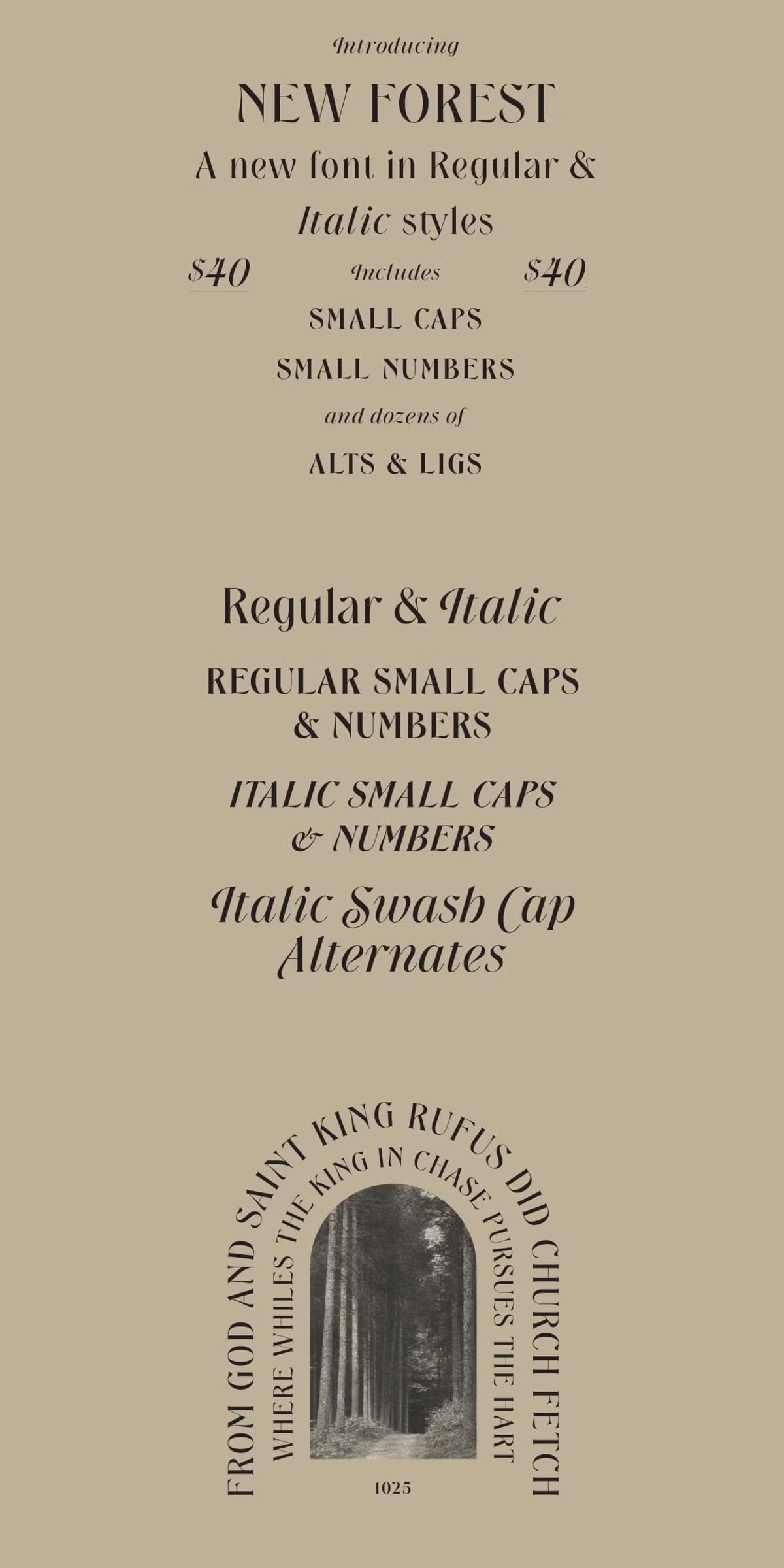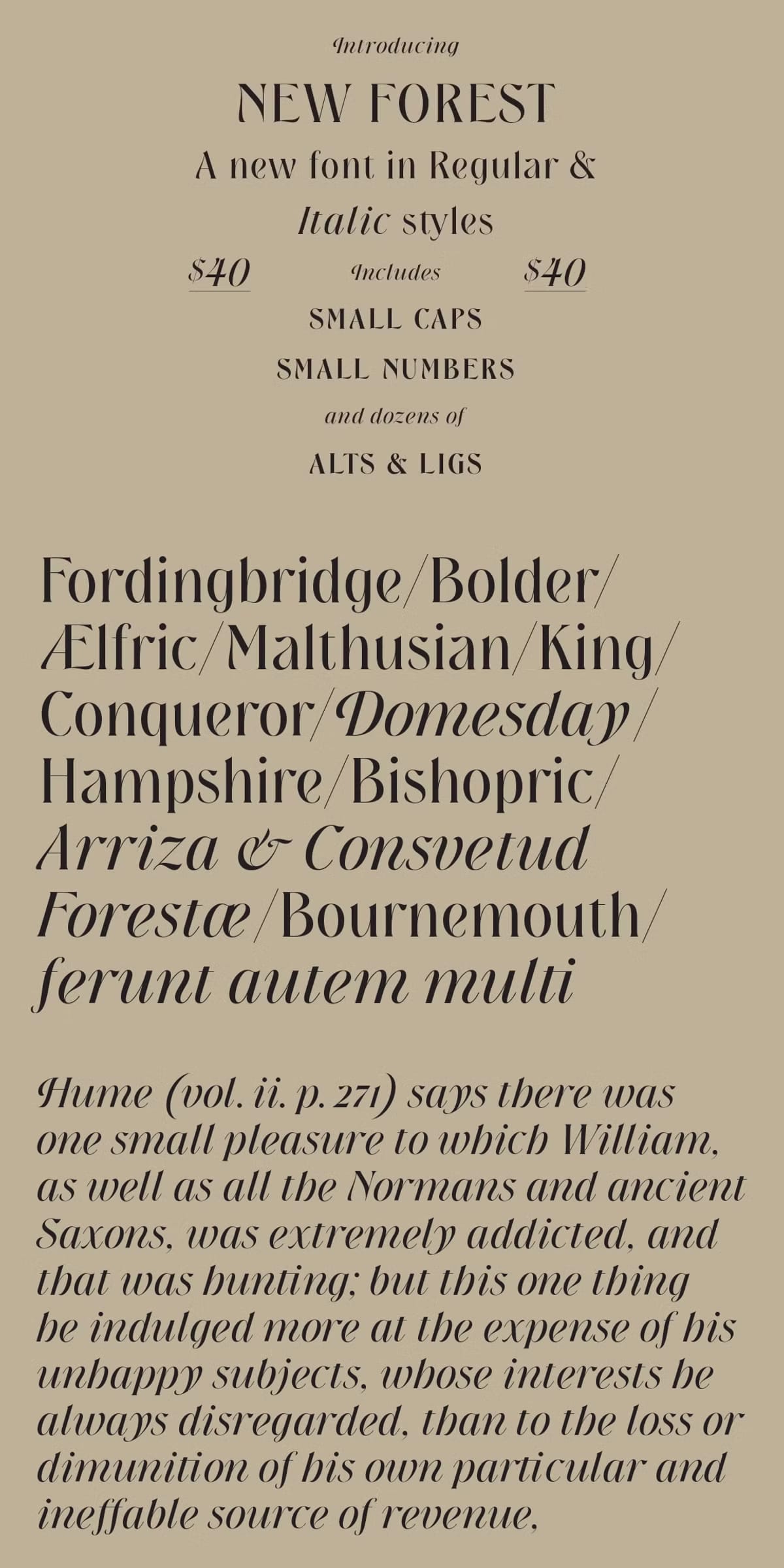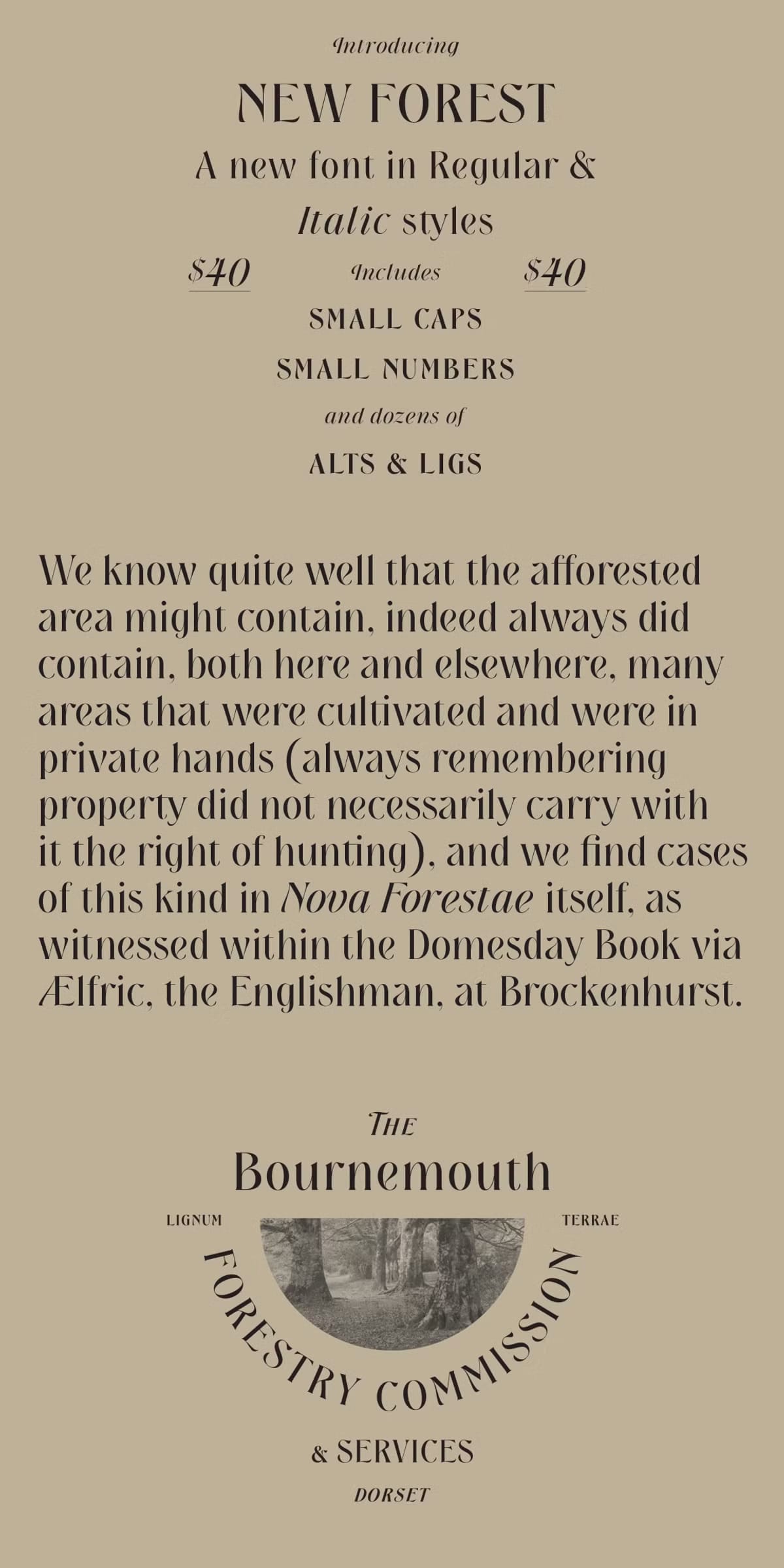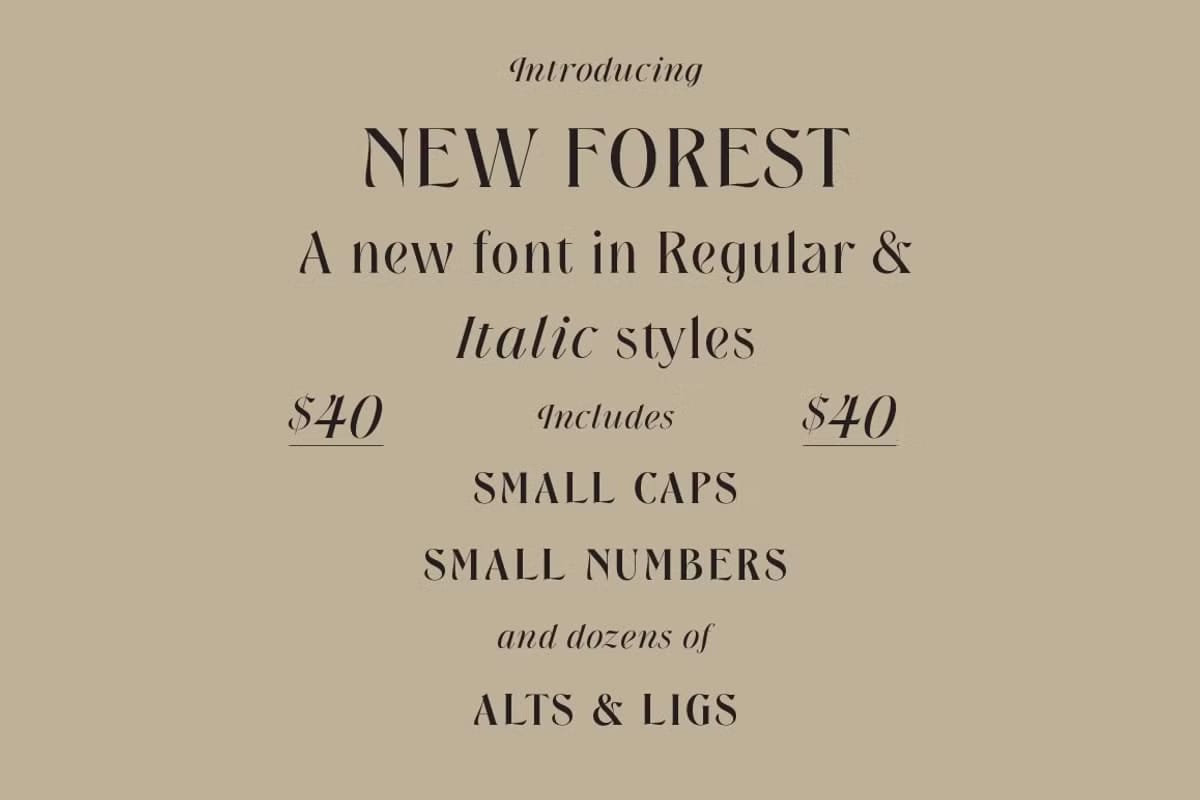
New Forest
Enhance your design projects with New Forest, a beautifully crafted font that combines modern elegance with subtle art nouveau influences. This typeface is designed to bring sophistication and style to your typography, making it perfect for a wide range of creative applications.
Comprehensive Font Family with Two Distinct Styles
New Forest comes with two complementary styles: Regular and Italic. Together, they offer a total of 853 glyphs, providing you with an extensive toolkit to create versatile and polished designs. Whether you need a graceful italic touch or a clean regular style, New Forest delivers with precision and flair.
Rich Features for Creative Flexibility
• Small Caps: Add a classic and refined look to your text with beautifully designed small caps included in both styles.
• Small Numbers: Utilize small numerals that blend seamlessly with lowercase text for a harmonious appearance.
• Multiple Ligatures: Enhance the flow and readability of your typography with a variety of ligatures that add natural connections between letters.
• Alternates: Explore alternate characters to customize your text and add unique stylistic touches to your work.
New Forest’s elegant design and extensive character set make it an excellent choice for designers seeking a font that balances tradition with modernity. Its art nouveau leanings add a decorative yet subtle charm, perfect for branding, editorial layouts, invitations, packaging, and more.
The font’s versatility ensures it performs beautifully across both print and digital media, maintaining clarity and style at various sizes. Whether you’re crafting headlines, body text, or decorative elements, New Forest provides the sophistication and flexibility your projects demand.